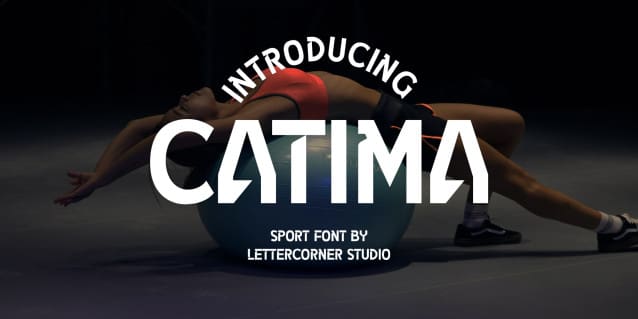
Catima Font
Catima Font is an extremely heavy sans serif font with peculiar quirks galore. You can get creative with this cool font and create spectacular masterpieces. Add it to your fonts library, and it will become an instant favorite!